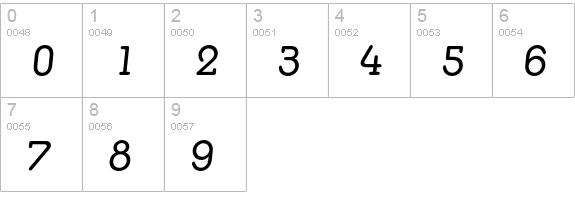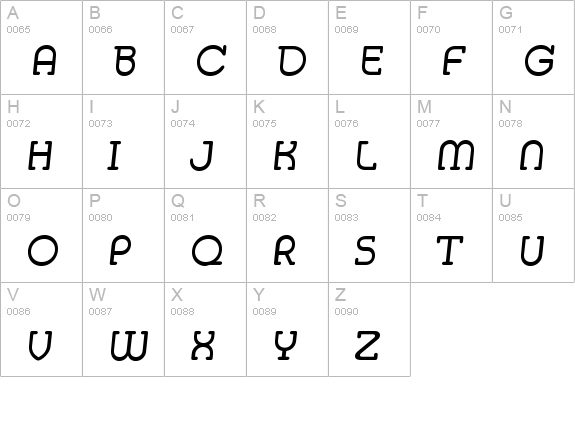
Media-RegularIta Font Details
The Media-RegularIta font is a versatile and stylish typeface that is perfect for adding a touch of elegance to your designs. Its sleek and modern design makes it suitable for a wide range of projects, from branding and advertising to web design and print materials. The italic style of this font adds a sophisticated and contemporary flair to any text. What makes the Media-RegularIta font even more appealing is that it is available for free download at FontsMarket.com. This means that you can easily access this high-quality font without any cost, making it a valuable addition to your font collection. Take advantage of the sleek and modern design of the Media-RegularIta font today and enhance your projects with its stylish aesthetic.